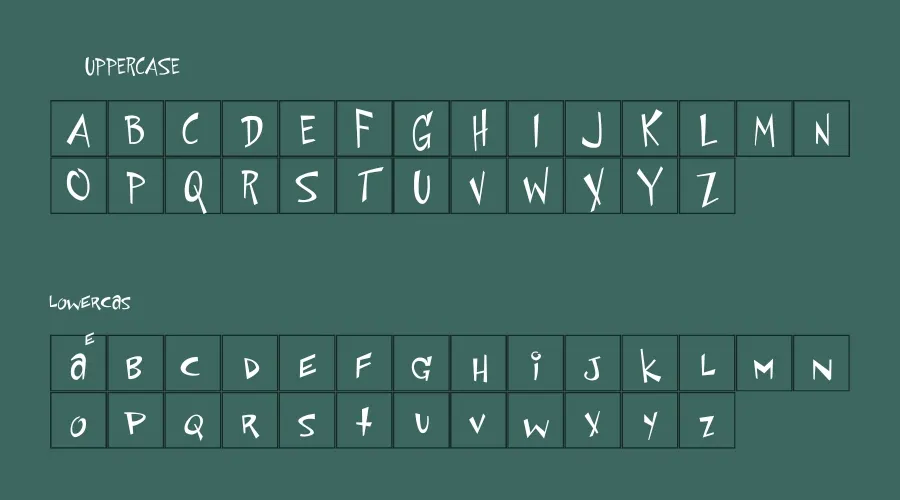
About Space Toaster Font
The Space Toaster Font was created by a well-known English designer named Chank Diesel and looks like the cartoon texture family. In 2003, this font was released through Exploding Font Company and Chank Company.
The subfamily of this texture is roman and contains a unique type of styles and weights. This font includes various types of characters such as lowercase letters, numerals, symbols, digits, and many other special structures of the alphabet set.